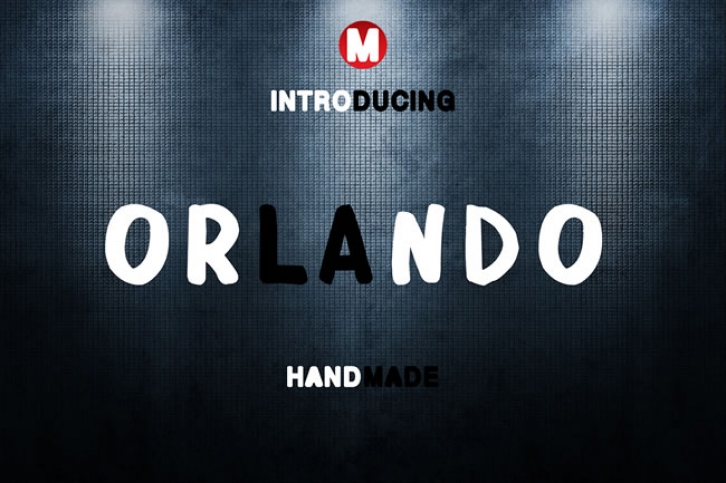
‘Orlando’ is a new, fresh & modern typeface! Perfect for designing invitations, greeting cards, branding materials, business cards, quotes, posters and more!